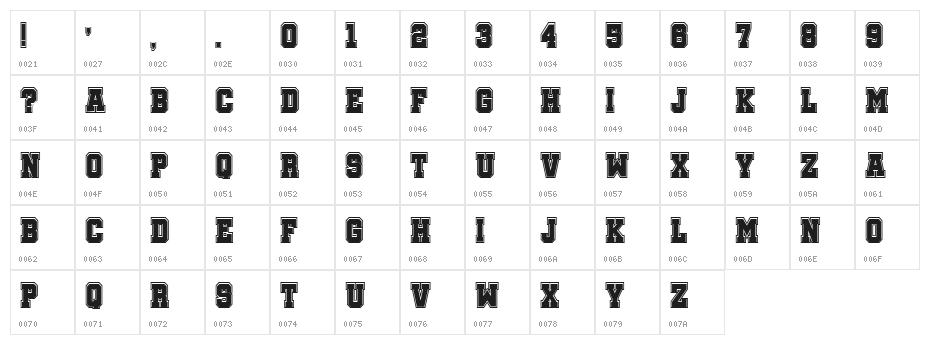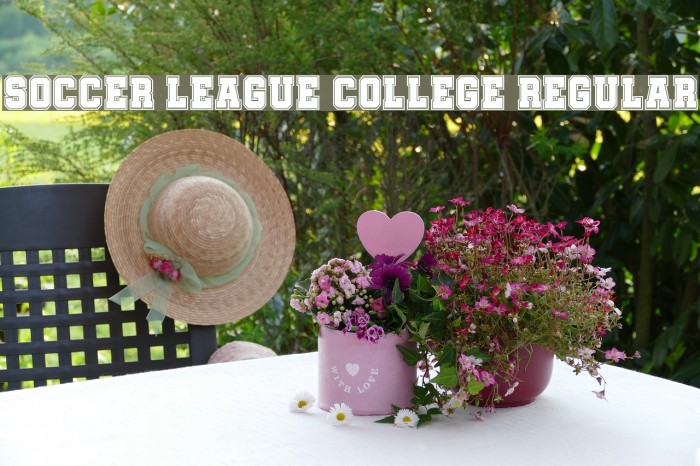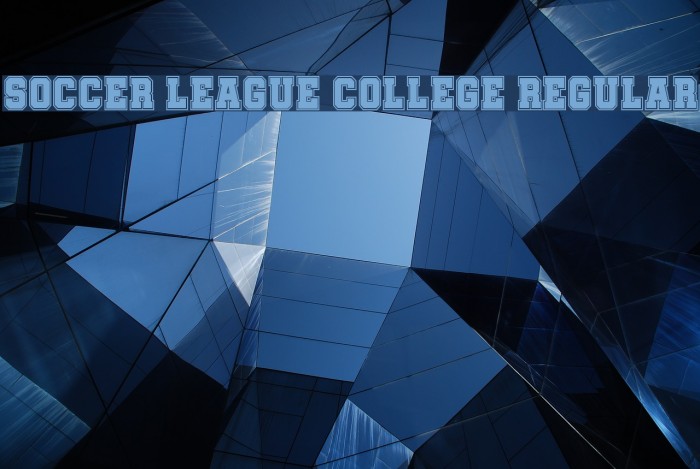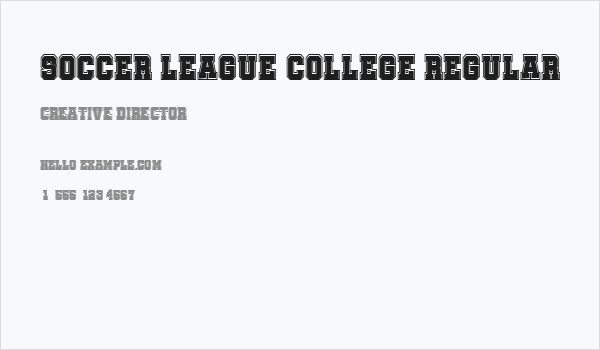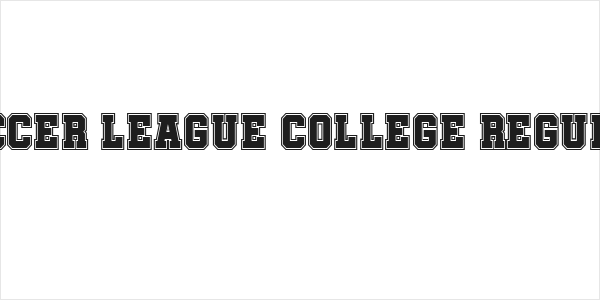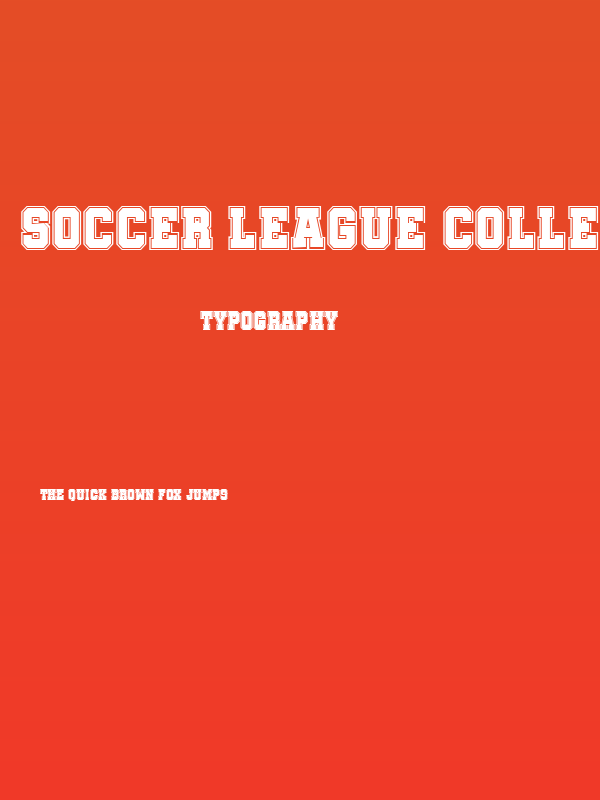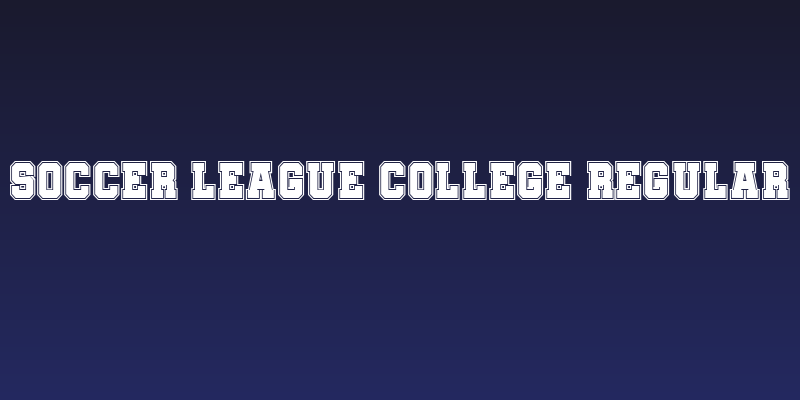
Soccer League College Regular Font
Soccer League College Regular Description
This font features a bold, collegiate style with strong, blocky characters that are outlined for added emphasis. The uppercase letters are prominent and commanding, making them ideal for attention-grabbing headlines. The numbers and special characters maintain the same bold aesthetic, ensuring consistency across all text elements. The font's design is reminiscent of traditional sports jerseys, evoking a sense of athleticism and team spirit. Its structured form and clear lines make it highly legible, even from a distance. The font's robust appearance is perfect for projects that require a strong visual impact.
| Proposed Projects | Ideal for sports team branding, college event posters, athletic apparel design, and school spirit merchandise. |